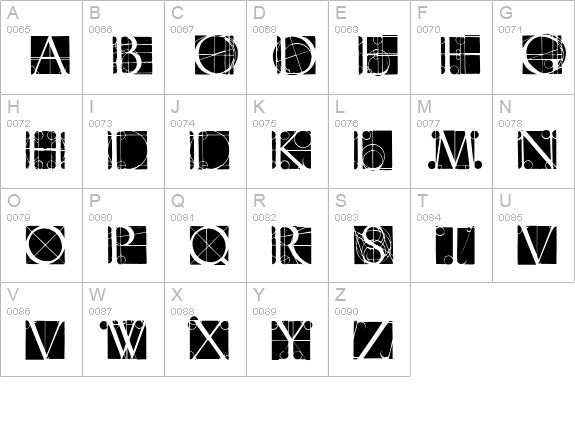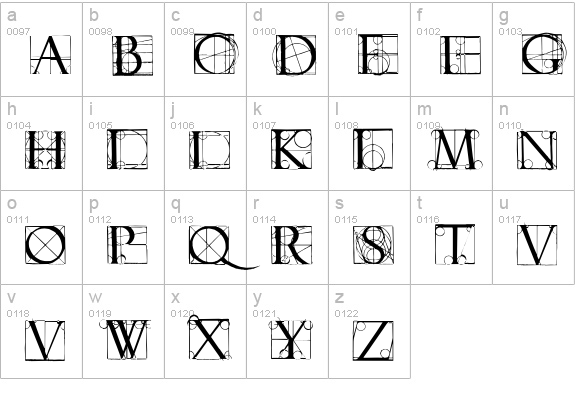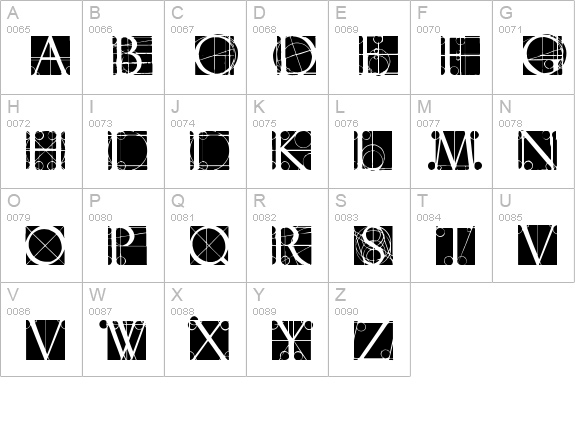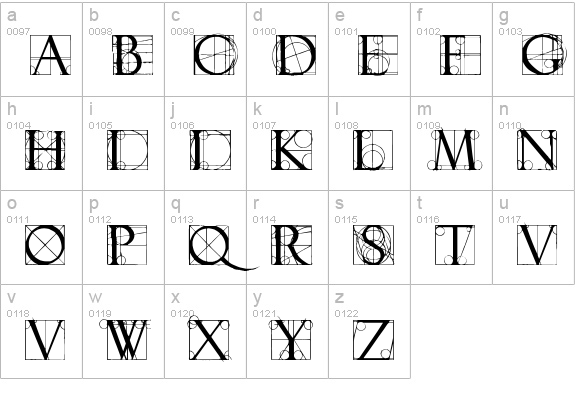
NeudoerfferScribbleQuality Font Details
NeudoerfferScribbleQuality font is a unique and artistic typeface that exudes a hand-drawn charm perfect for adding a playful touch to your designs. Its irregular lines and rough edges give it a spontaneous and authentic look, making it ideal for projects that require a creative and whimsical vibe. This font is a great choice for posters, greeting cards, invitations, and more. The best part is that NeudoerfferScribbleQuality font is available for free download at FontsMarket.com. You can easily access this delightful font and incorporate it into your projects to make them stand out with its distinctive style. Don't miss the opportunity to add this fun and expressive typeface to your font collection today!